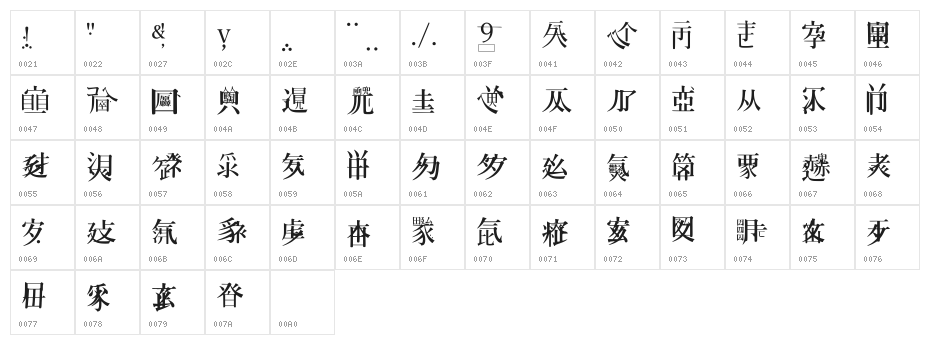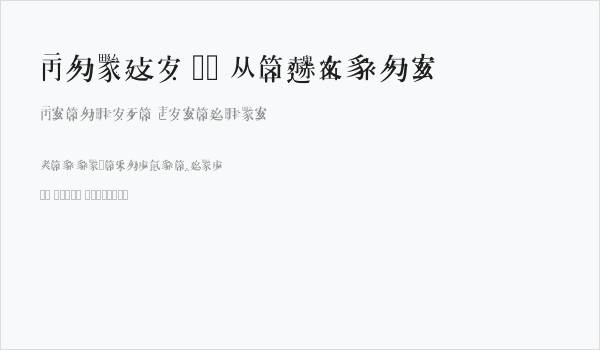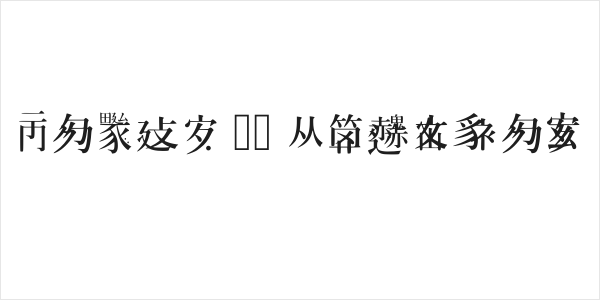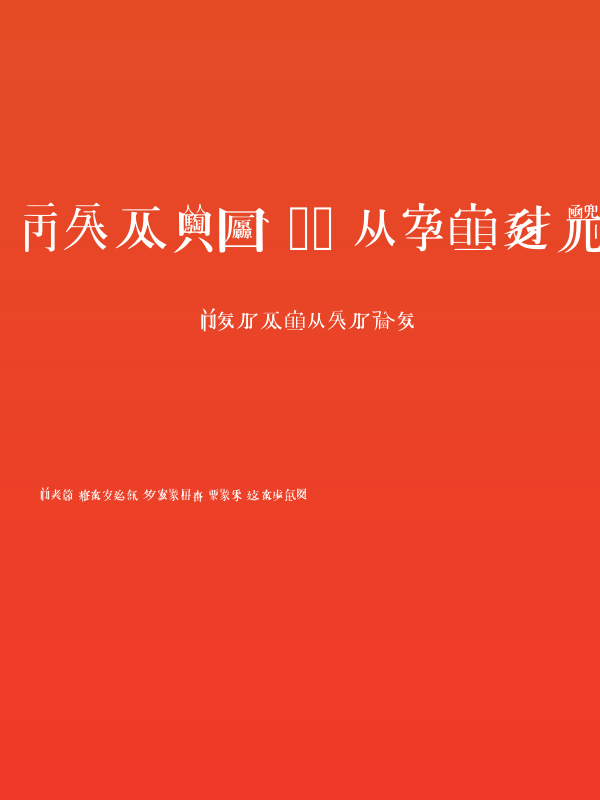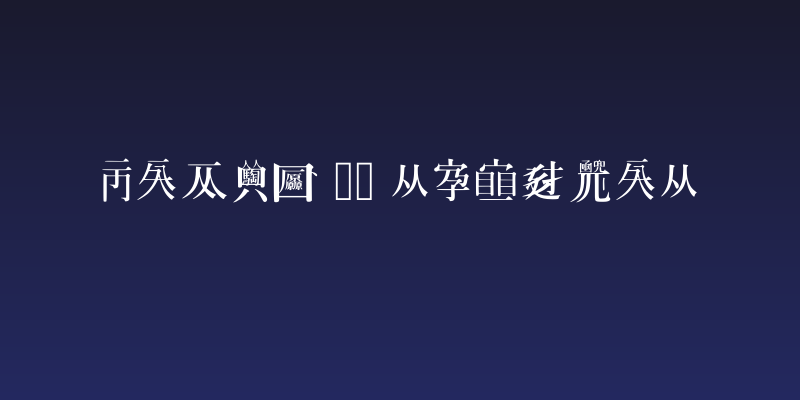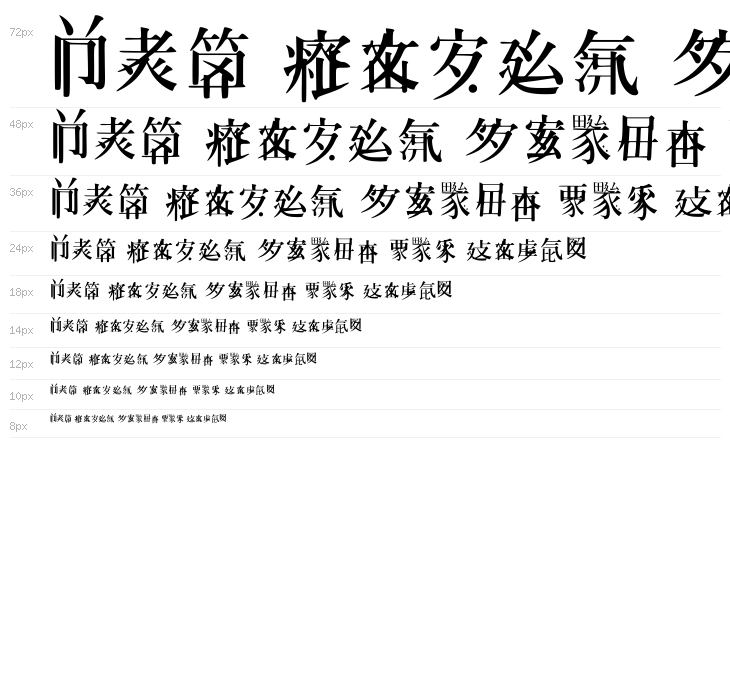
Caoji 20 Regular Font
Caoji 20 Regular Description
This font features a distinctive and intricate design, characterized by its elegant and artistic strokes. The characters exhibit a blend of traditional and modern elements, with a focus on detailed and ornate lines. The font maintains a consistent structure, offering a harmonious balance between complexity and readability. Its unique style is evident in the way each character is crafted, showcasing a high level of artistry and attention to detail. The font is suitable for projects that require a touch of sophistication and cultural depth, making it ideal for artistic and formal applications.
| Use Case | Logos, Decorative text, Artistic projects |
| Proposed Projects | Ideal for artistic projects, formal invitations, cultural publications, and decorative designs. |